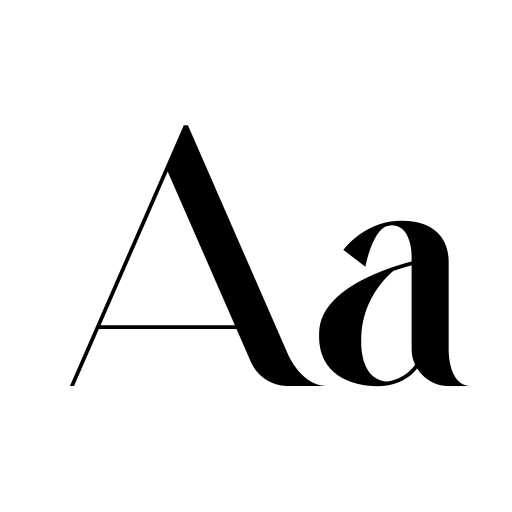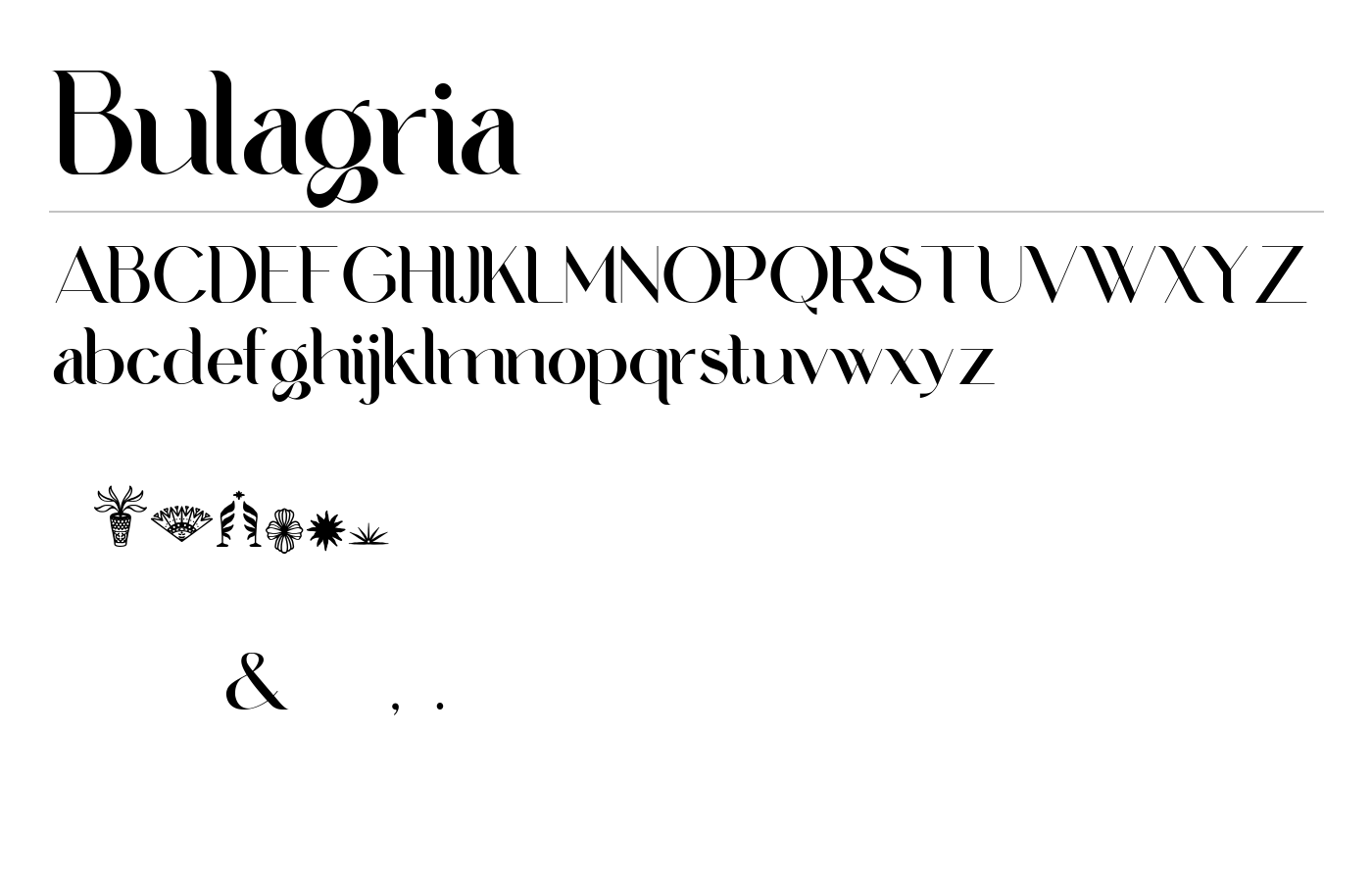
Bulagria is an elegant serif font with a modern, high-contrast design characterized by its thin, sharp strokes and thick verticals. Its narrow width and unique letterforms, such as the double-story "g" and the flowing ampersand, give it a refined, sophisticated feel ideal for upscale branding, fashion, and editorial headlines. This font shines in projects where a stylish and contemporary luxury tone is desired.
Bulagria Font
About Bulagria Font